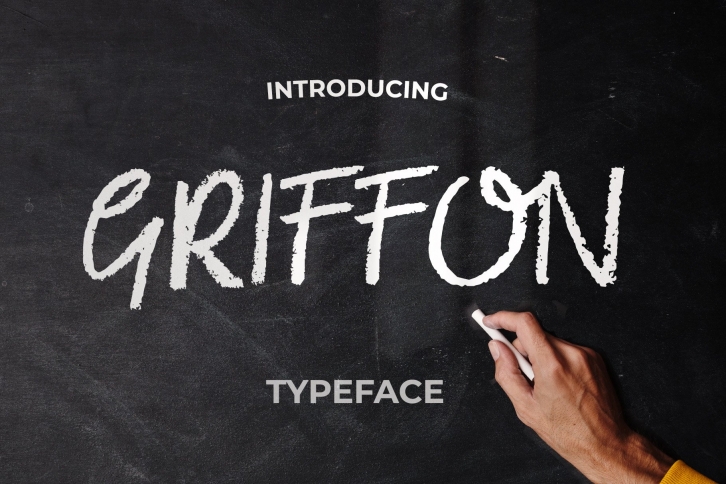
Introducing Griffon is a Handwritten Sketch font with a Chalk/Pencil/Crayon feel. Great for headings, it makes a statement with its rough handwritten scrawl style.
Great for use as headings, banners, labels and for a bold statement, it has been used in everything from Movies, Books, Packaging and Greetings Cards. Included in this pack is a range of editable designed templates using the font.